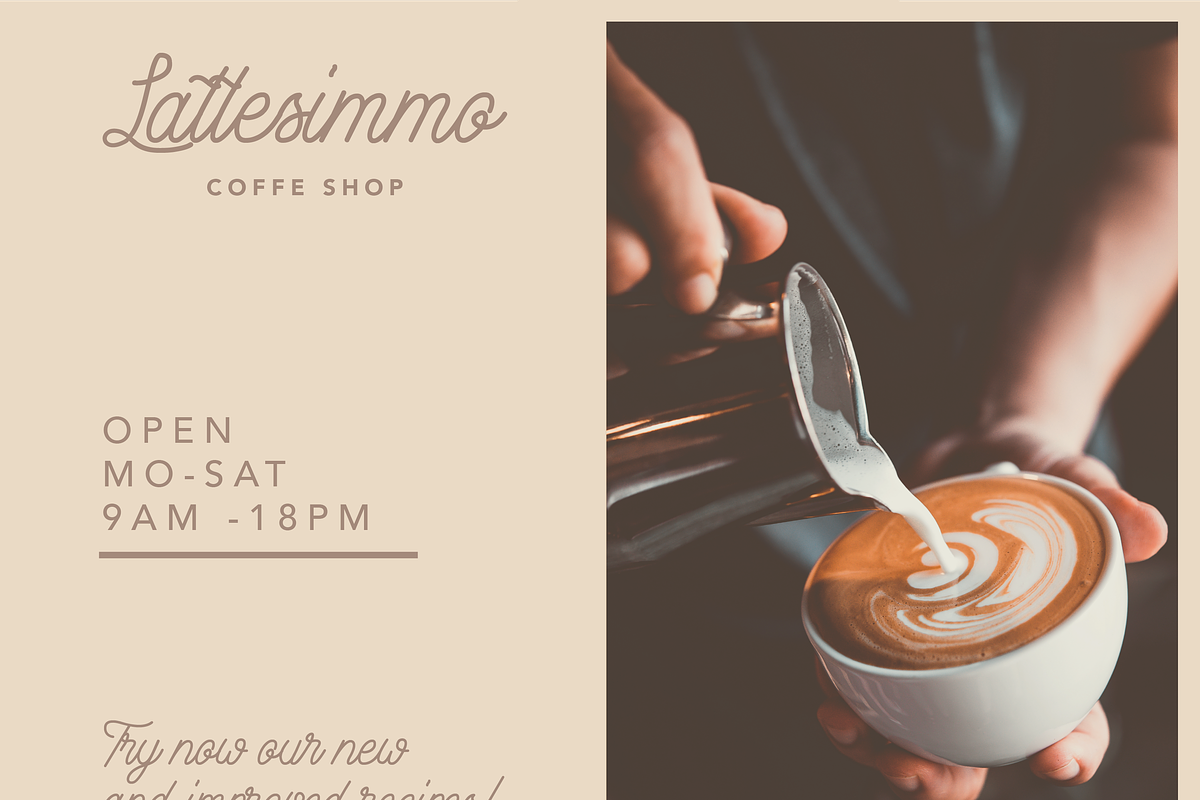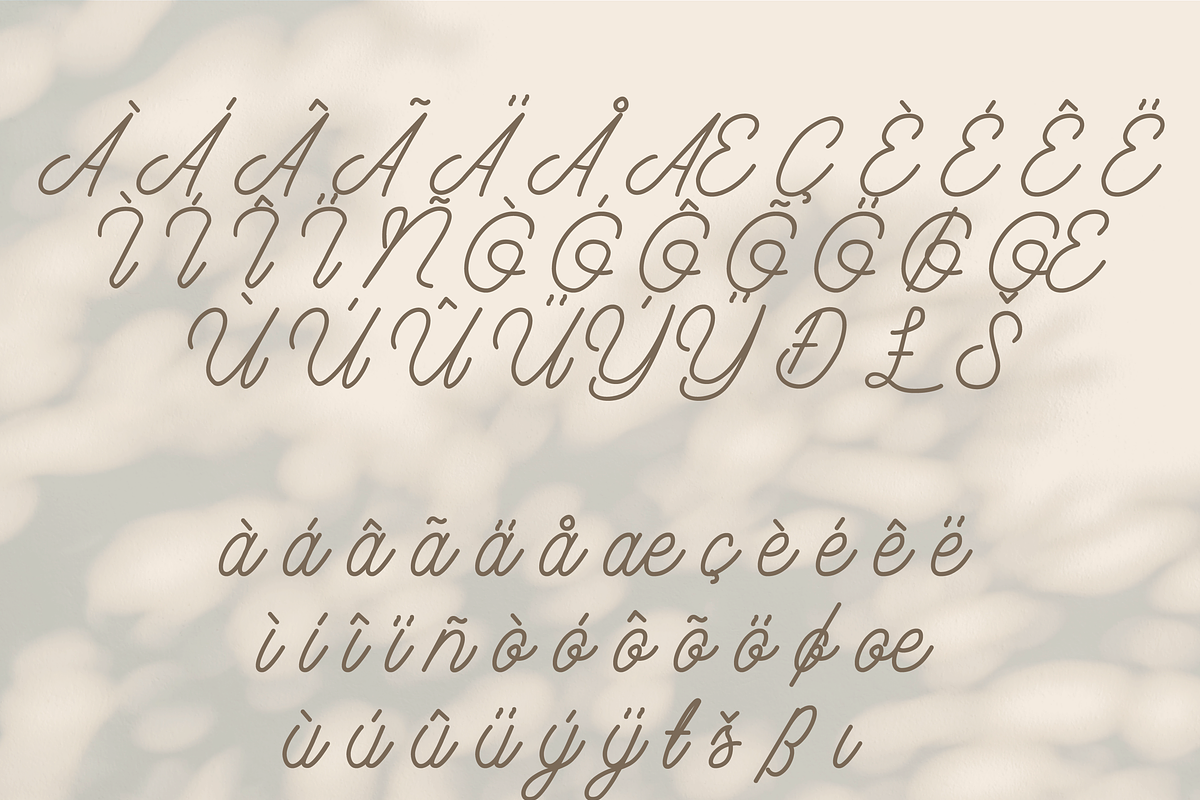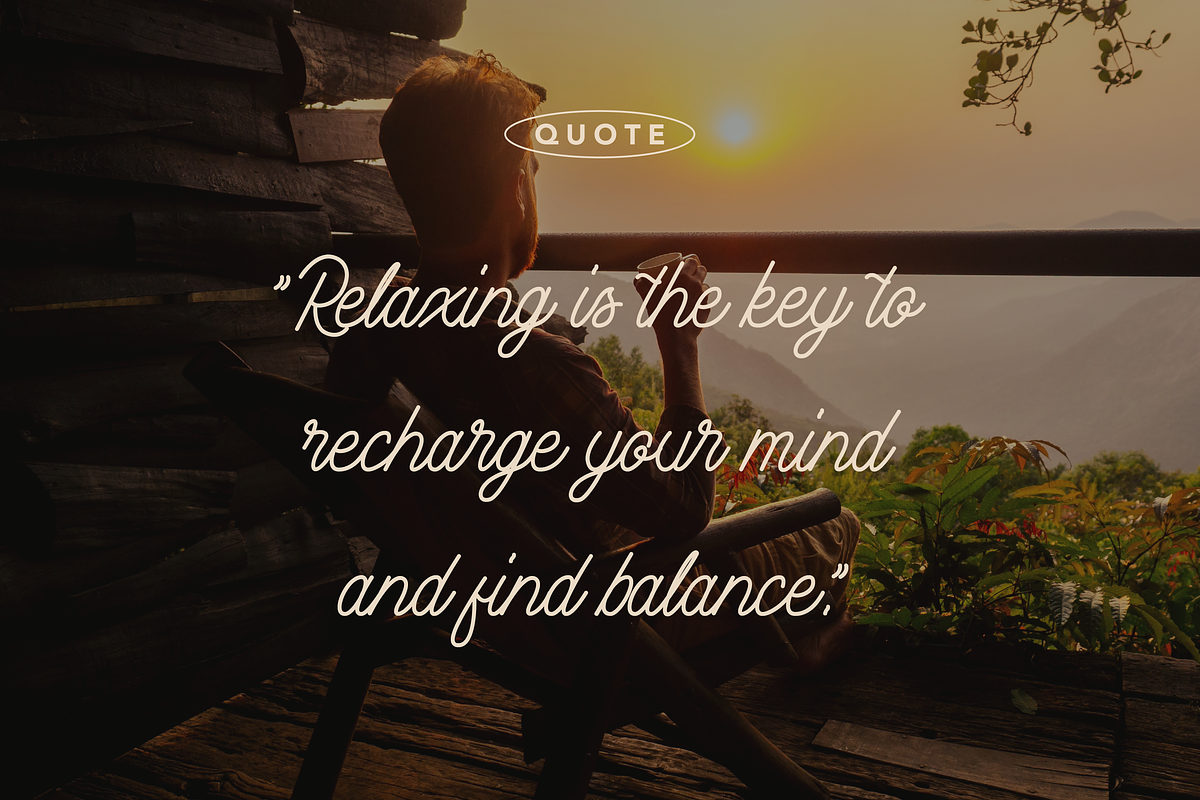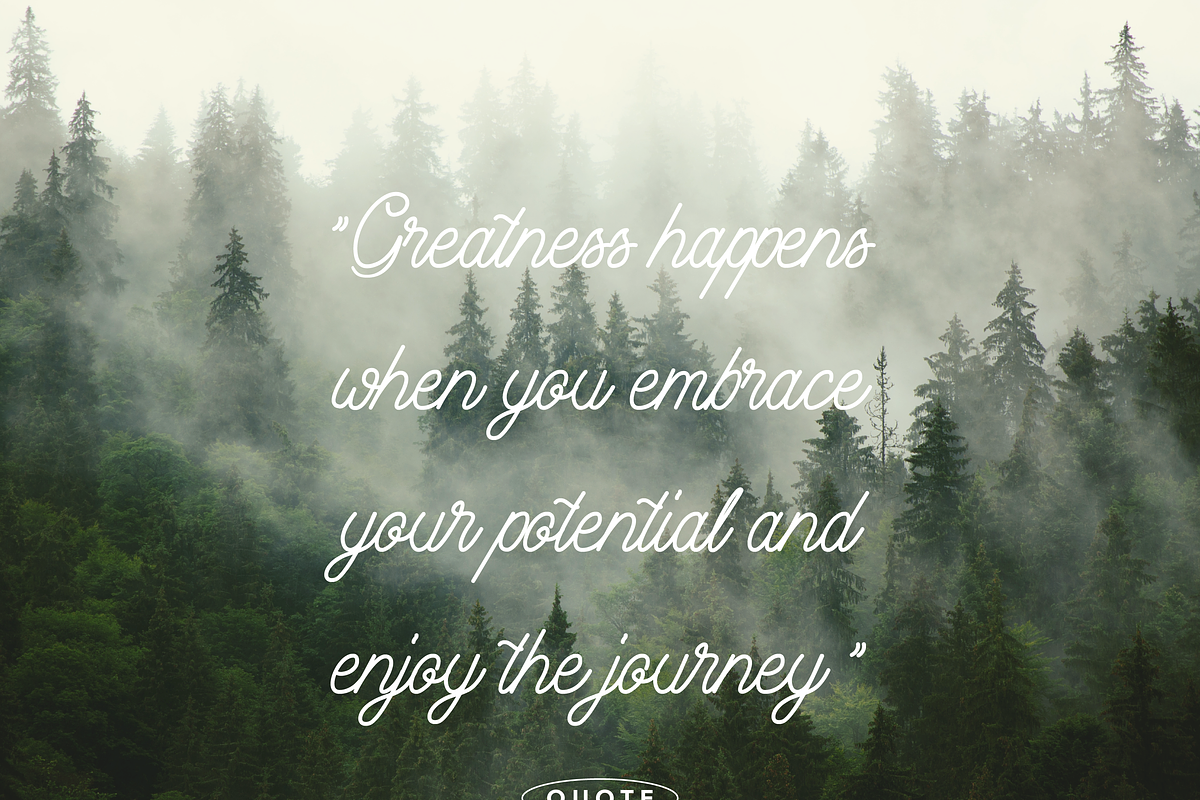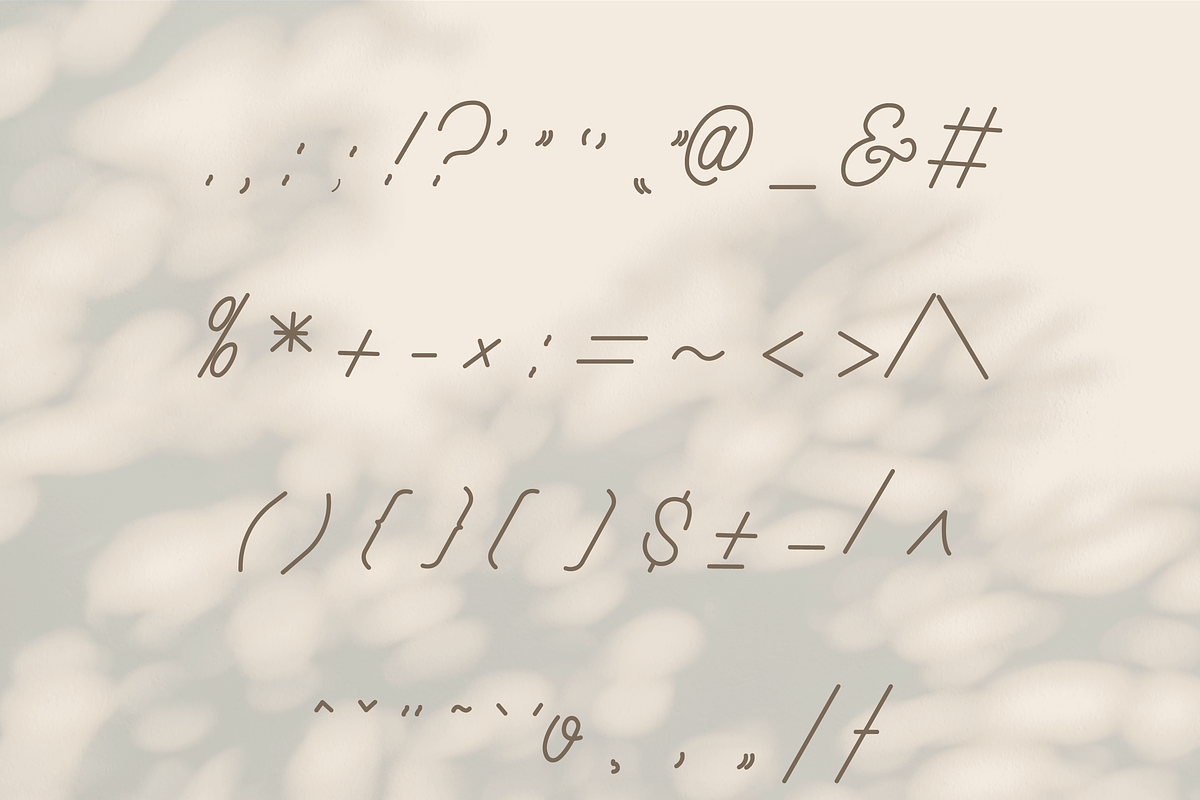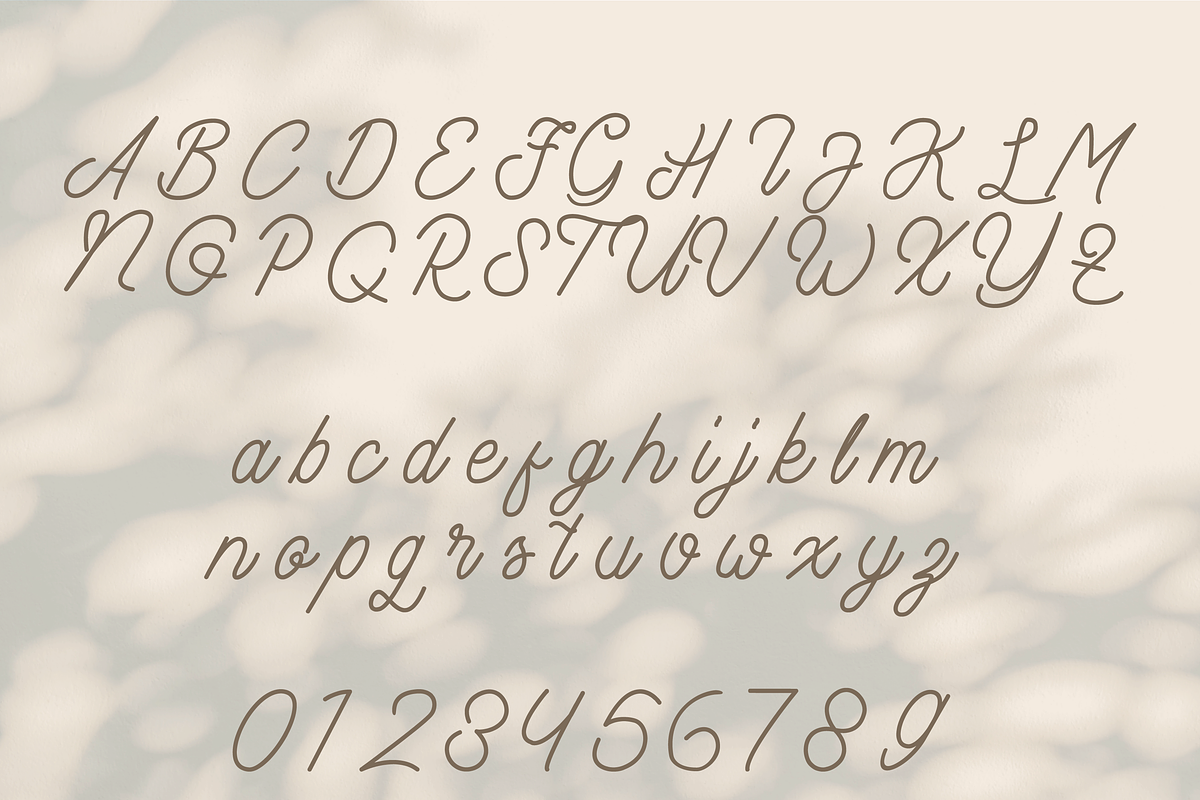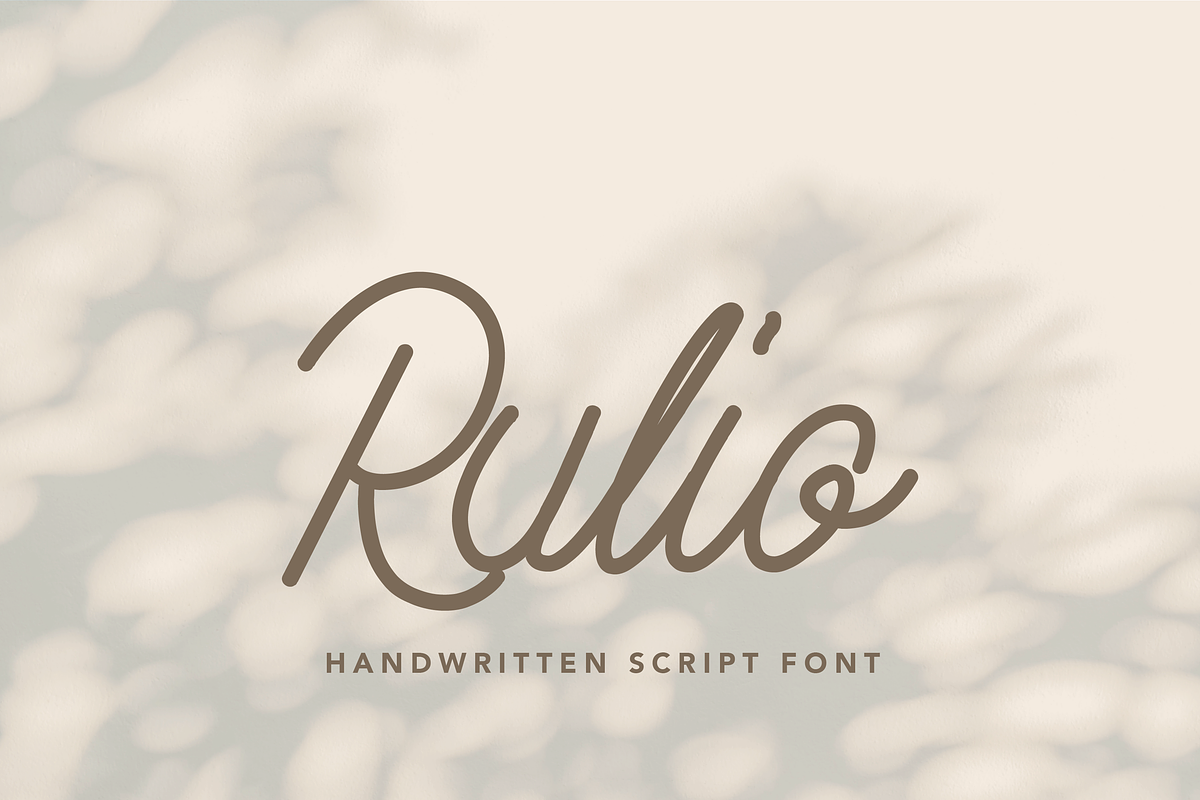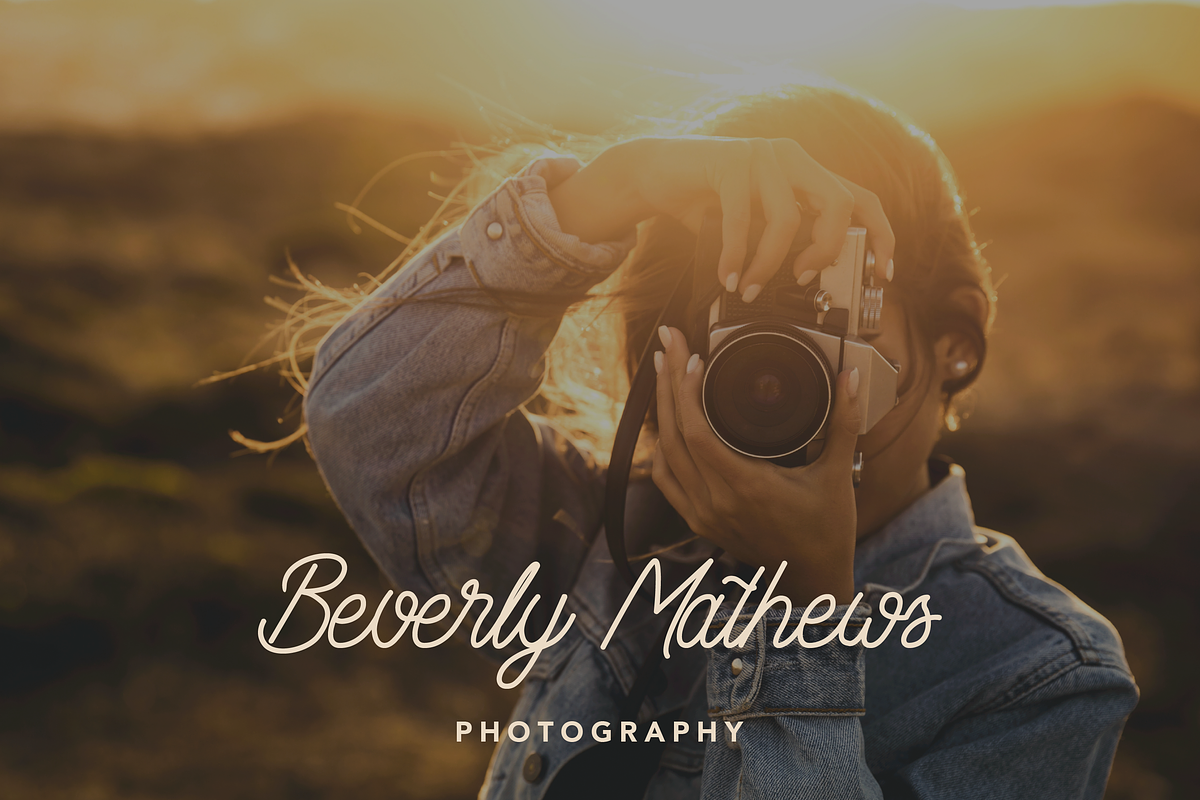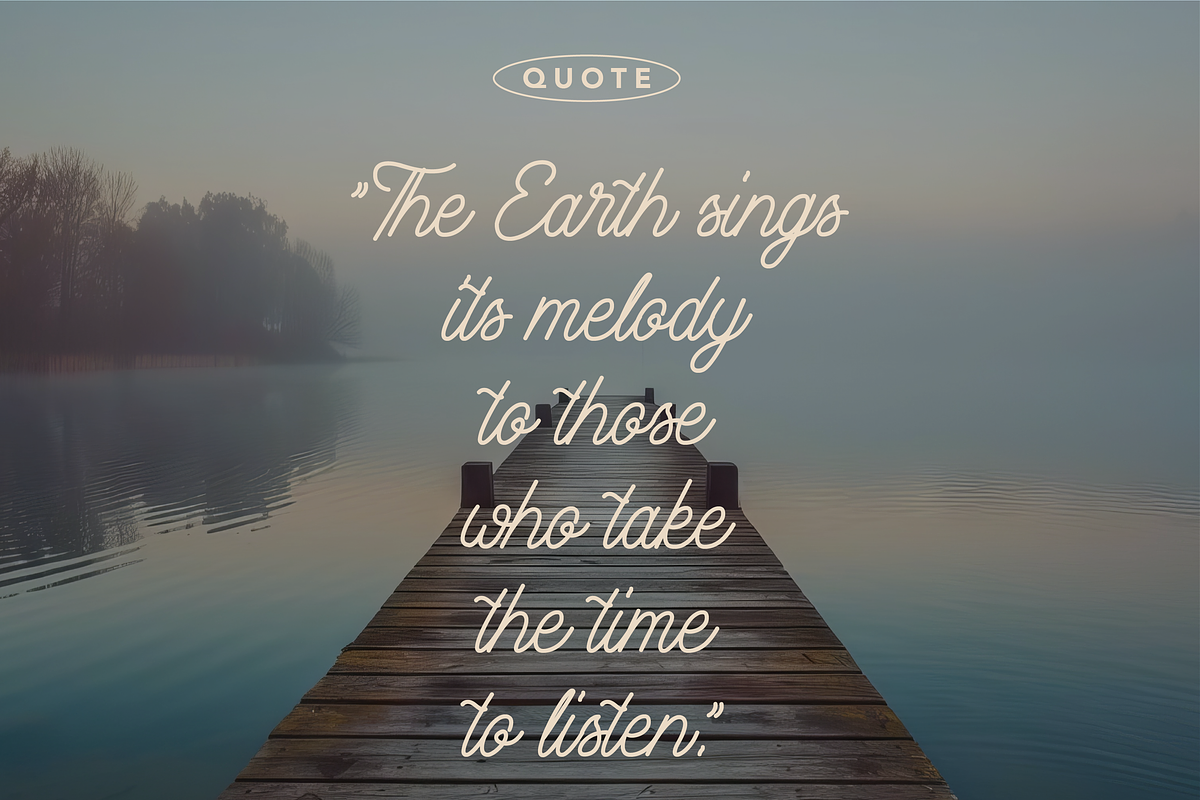
Rulio Monoline Font
Rulio – Elegant Monoline Script Font
Rulio is a beautifully crafted monoline script font that effortlessly blends elegance with modern sophistication. Its smooth, flowing letterforms exude grace and charm, making it the perfect choice for a variety of creative projects.